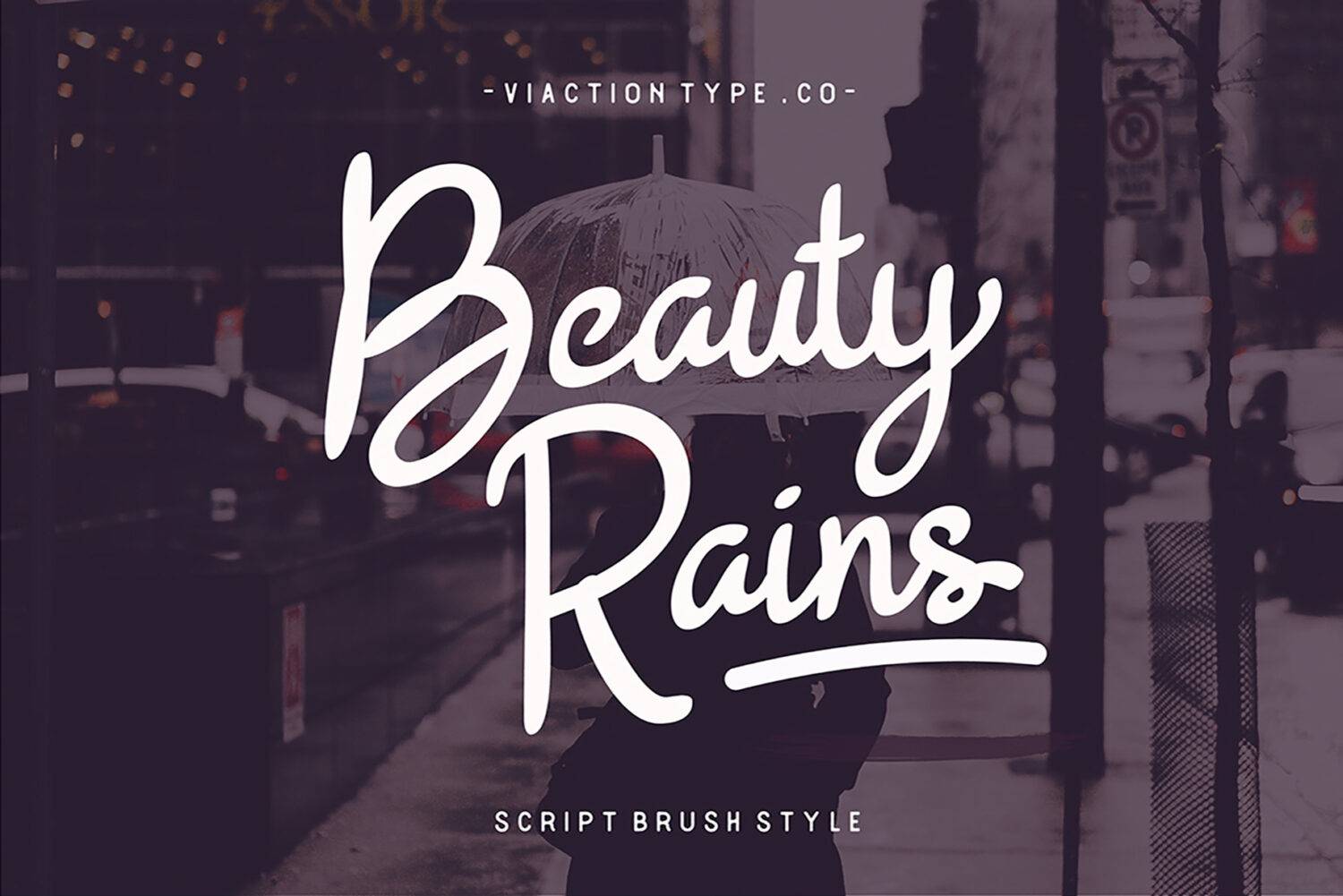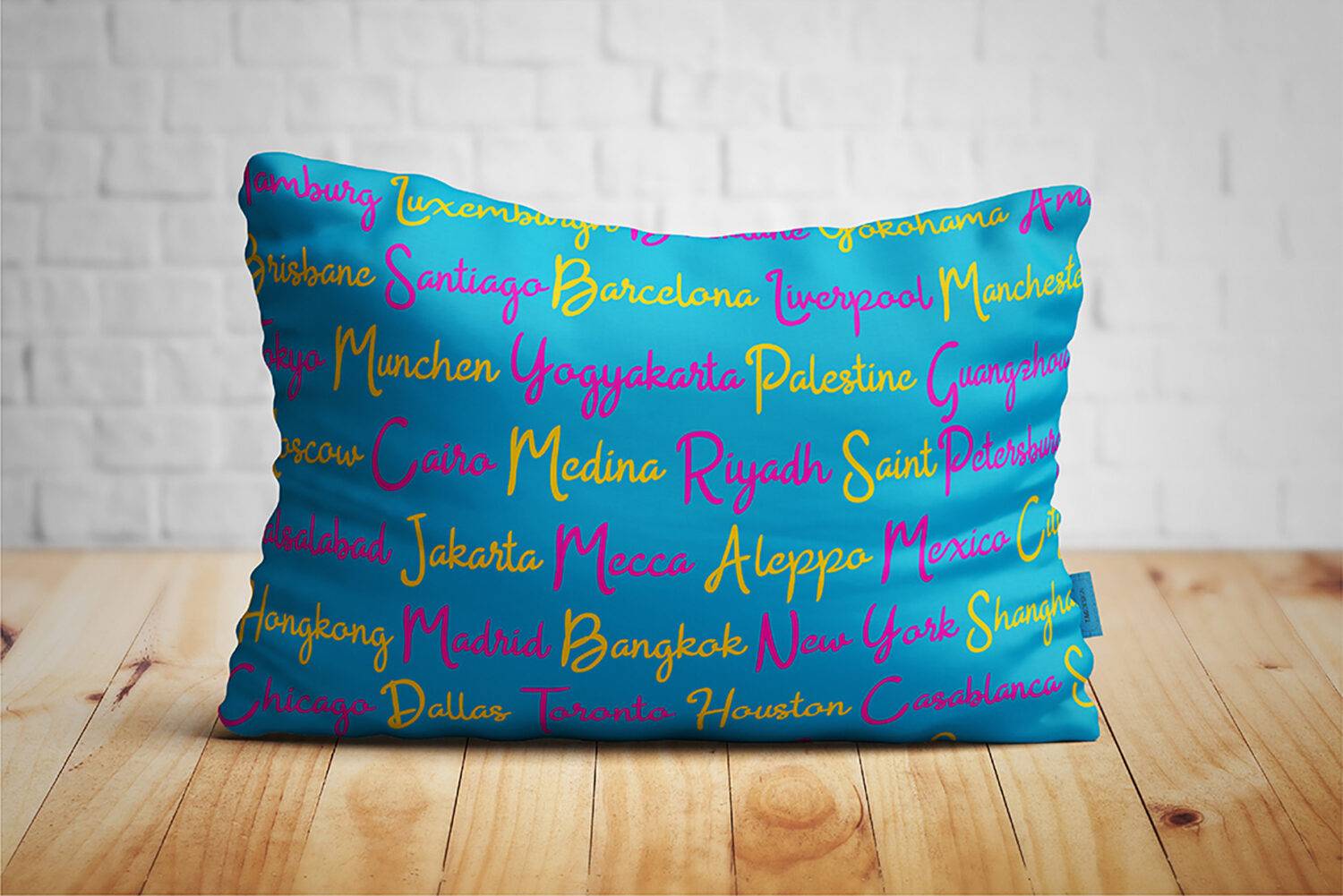
Beauty Rains is a playful and casual handwritten script font with a lively, slightly irregular stroke that gives it a warm and approachable feel. Its moderate x-height and smooth, rounded letterforms make it ideal for creative branding, invitations, and informal editorial use where a friendly and personal touch is desired. This font works well in logos and headlines, bringing a charming, human quality to designs without sacrificing readability.
Beauty Rains Font
About Beauty Rains Font